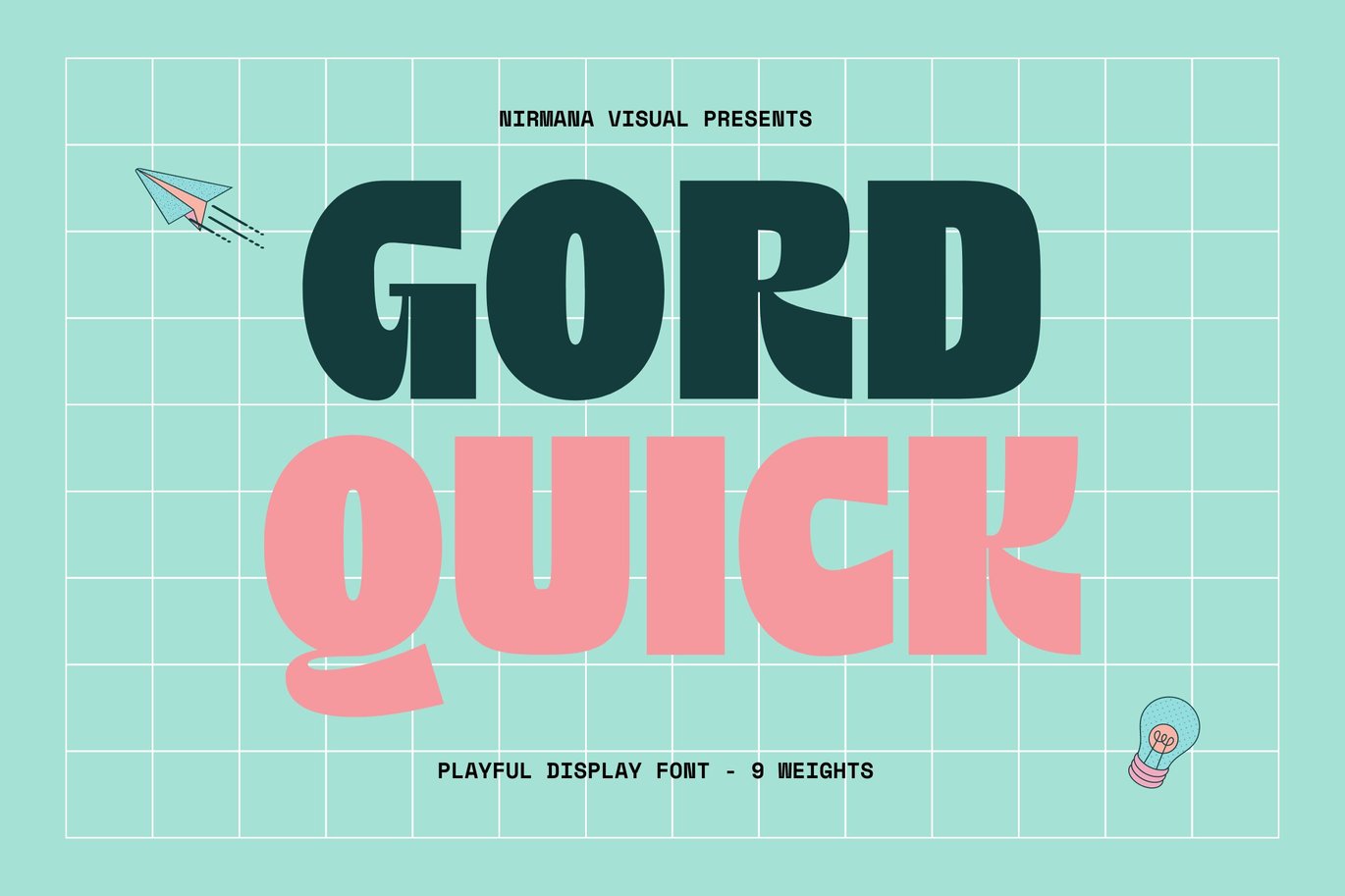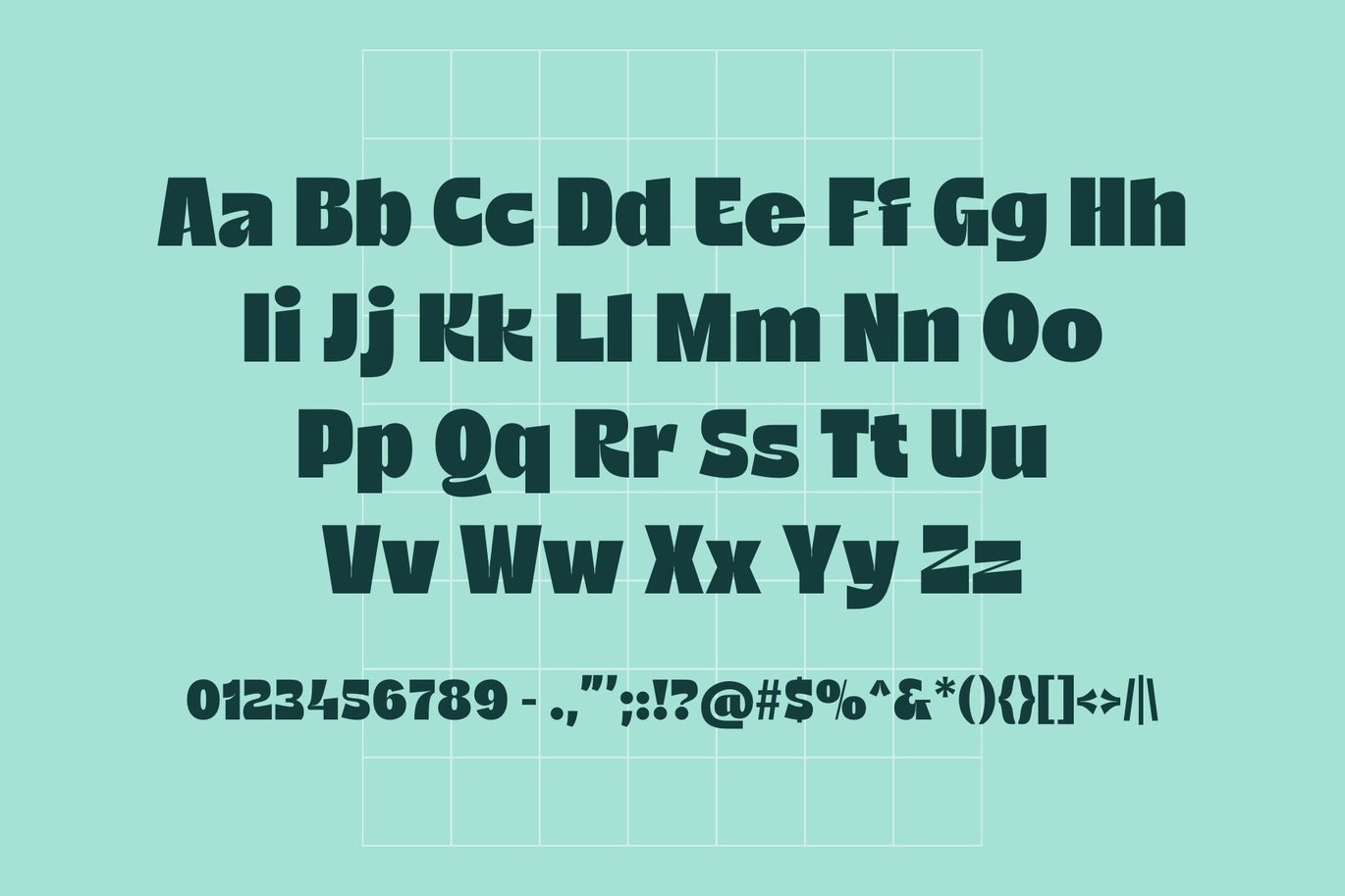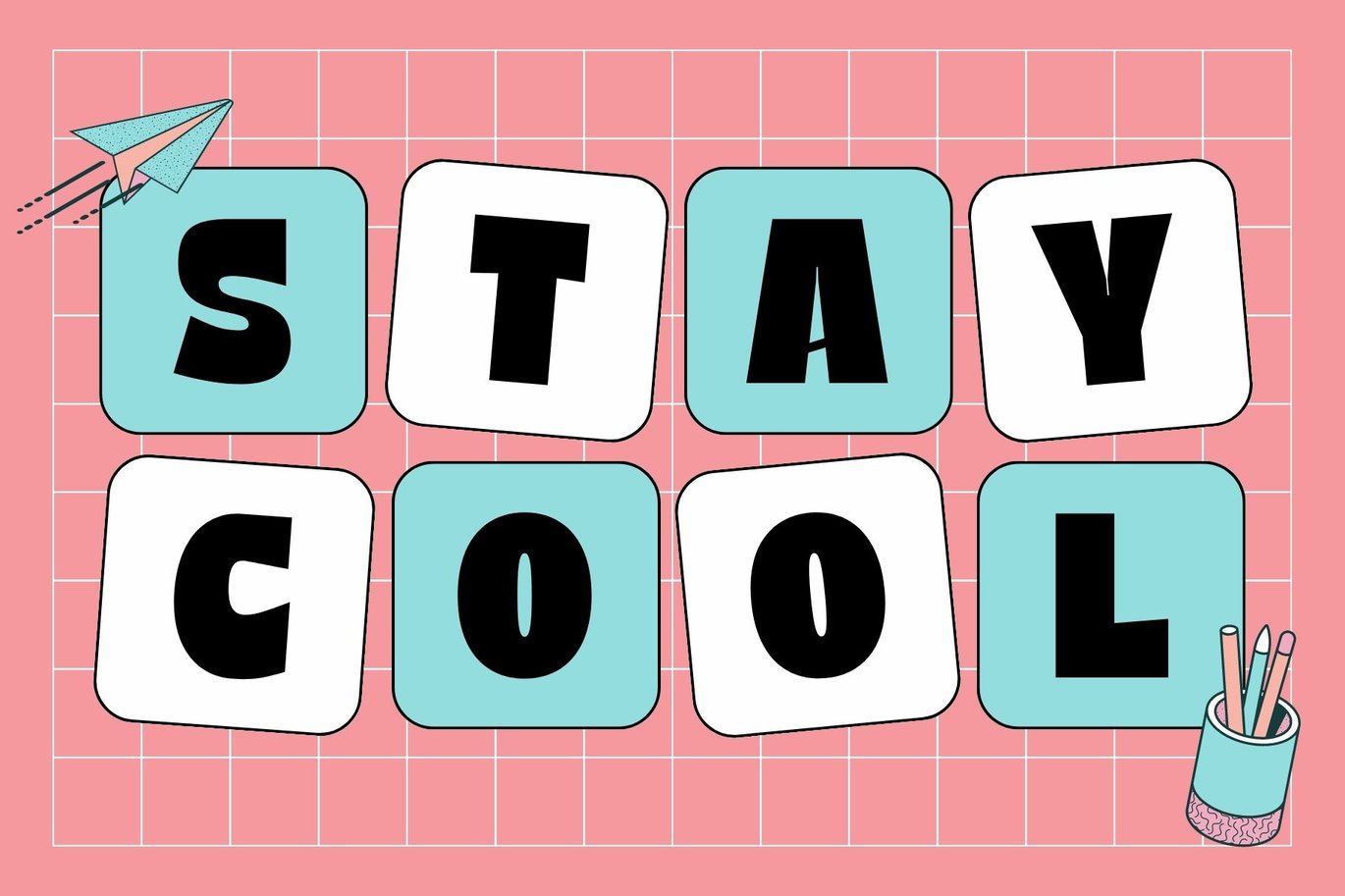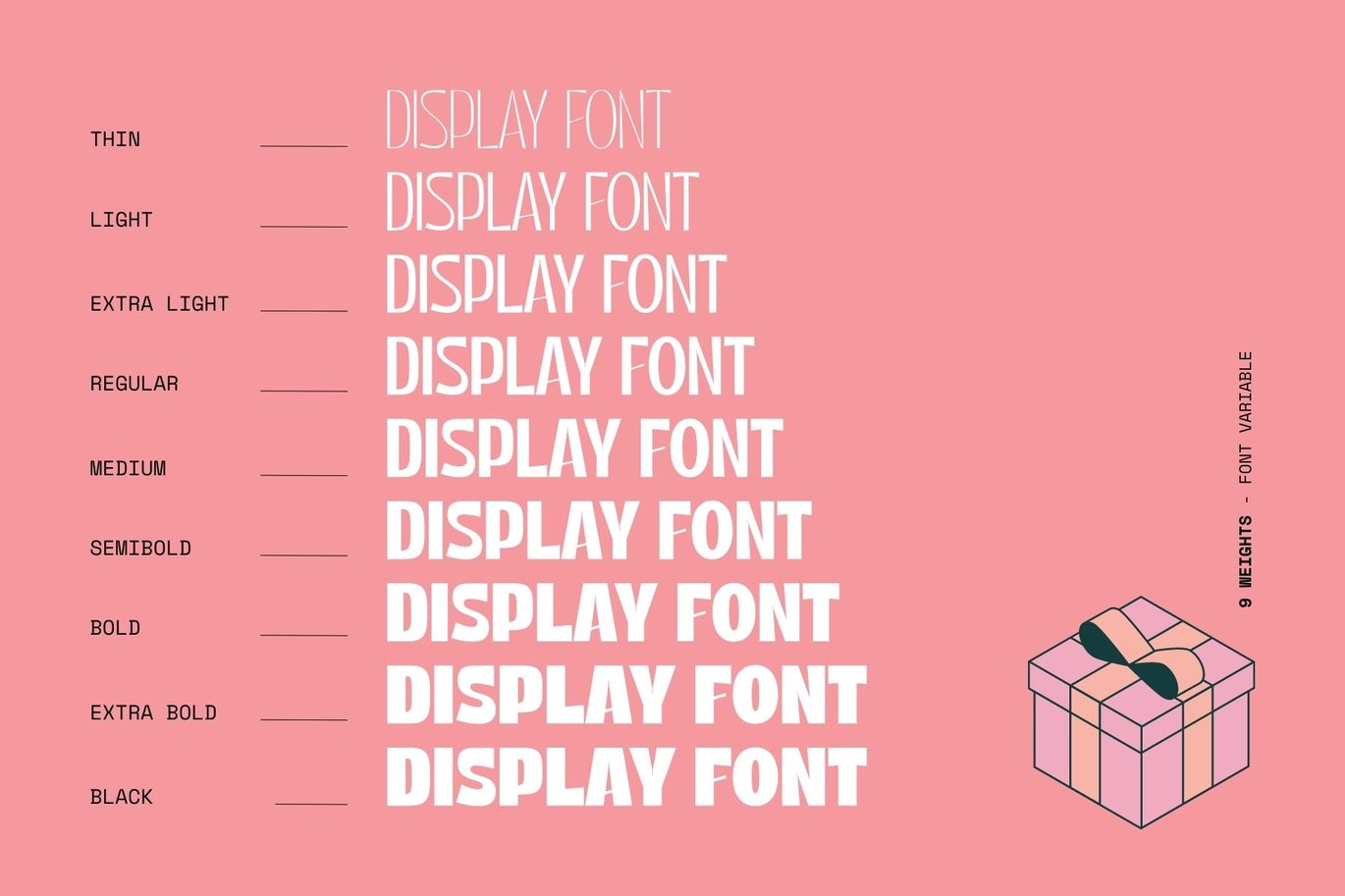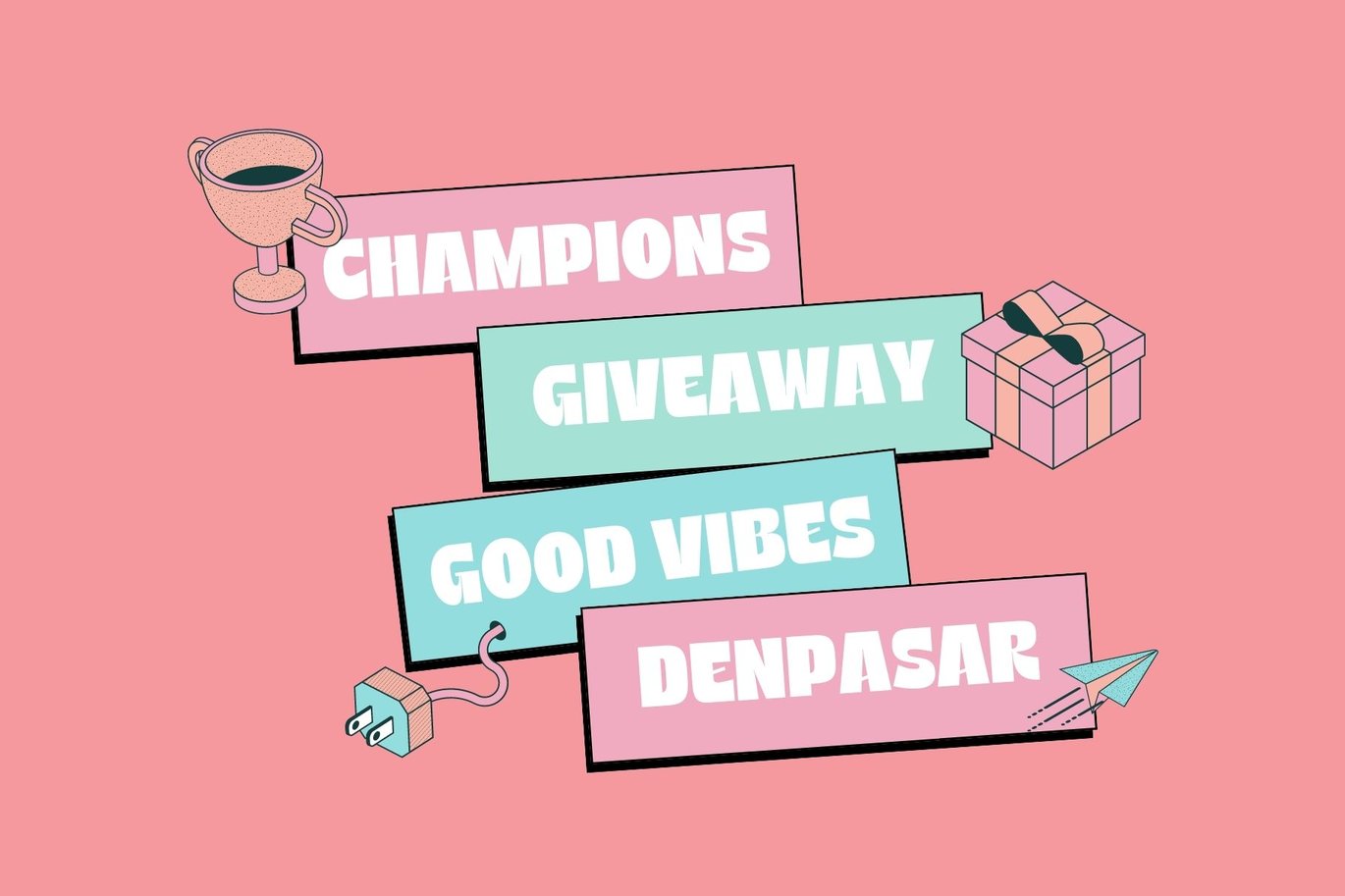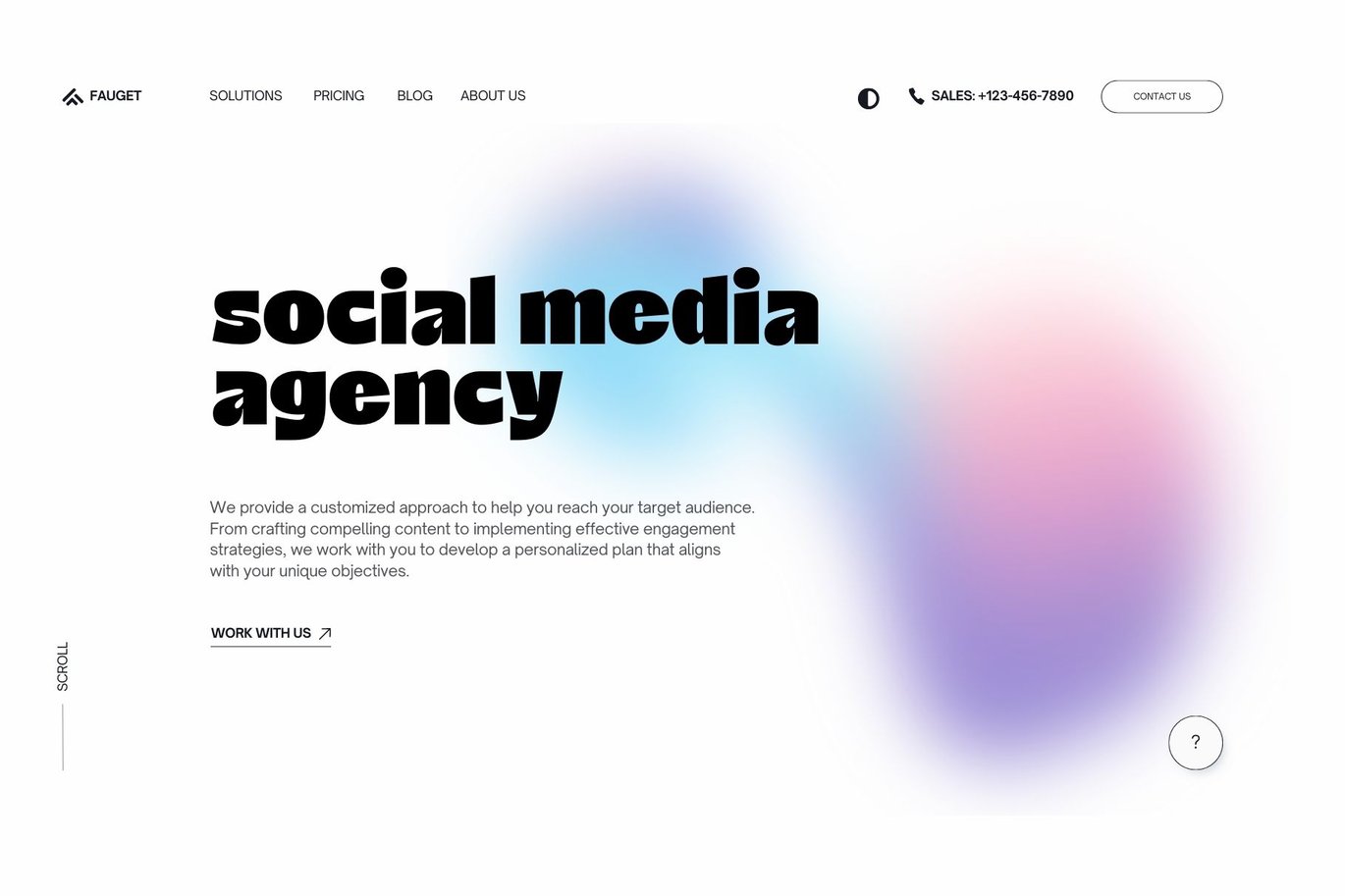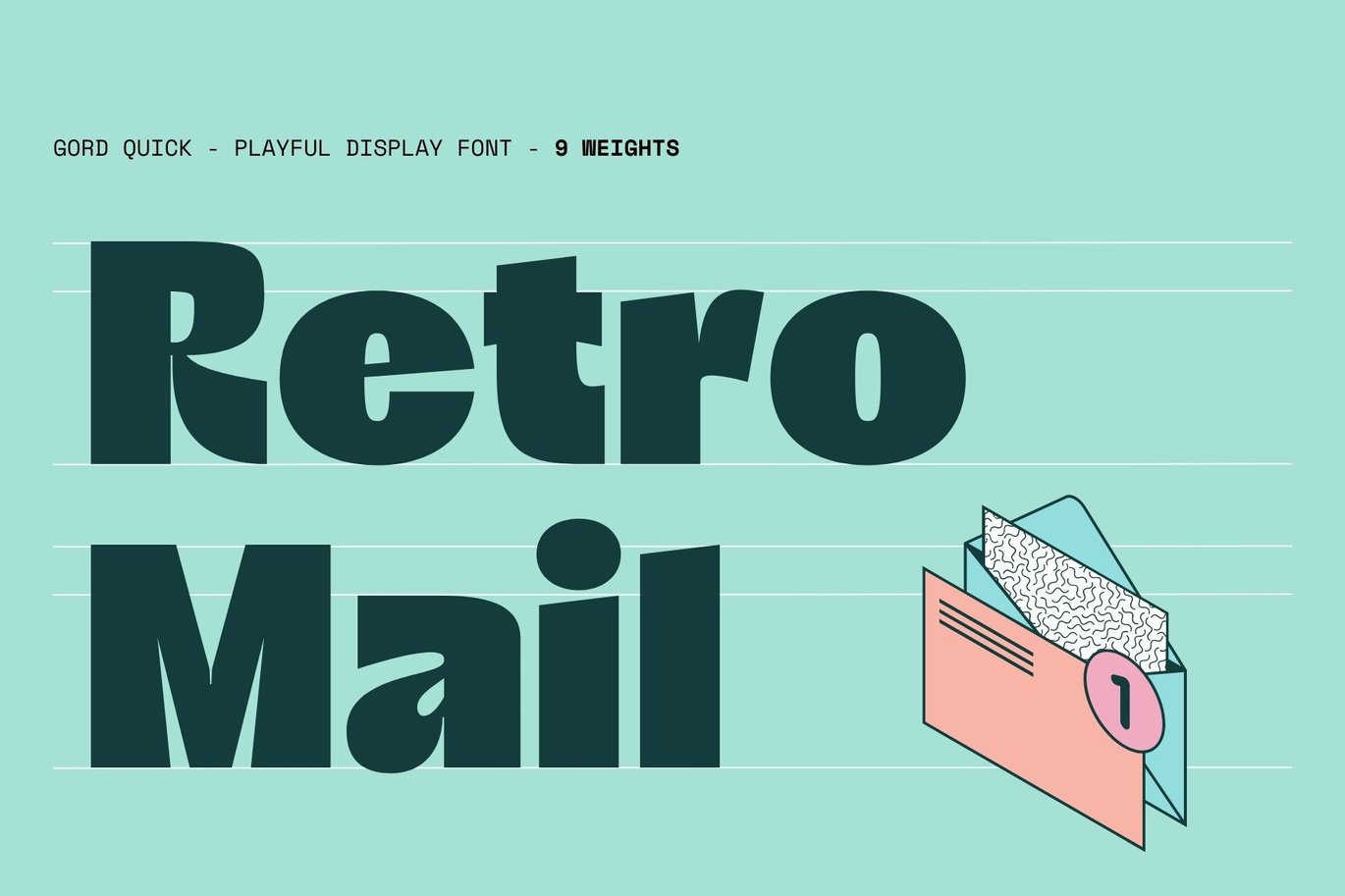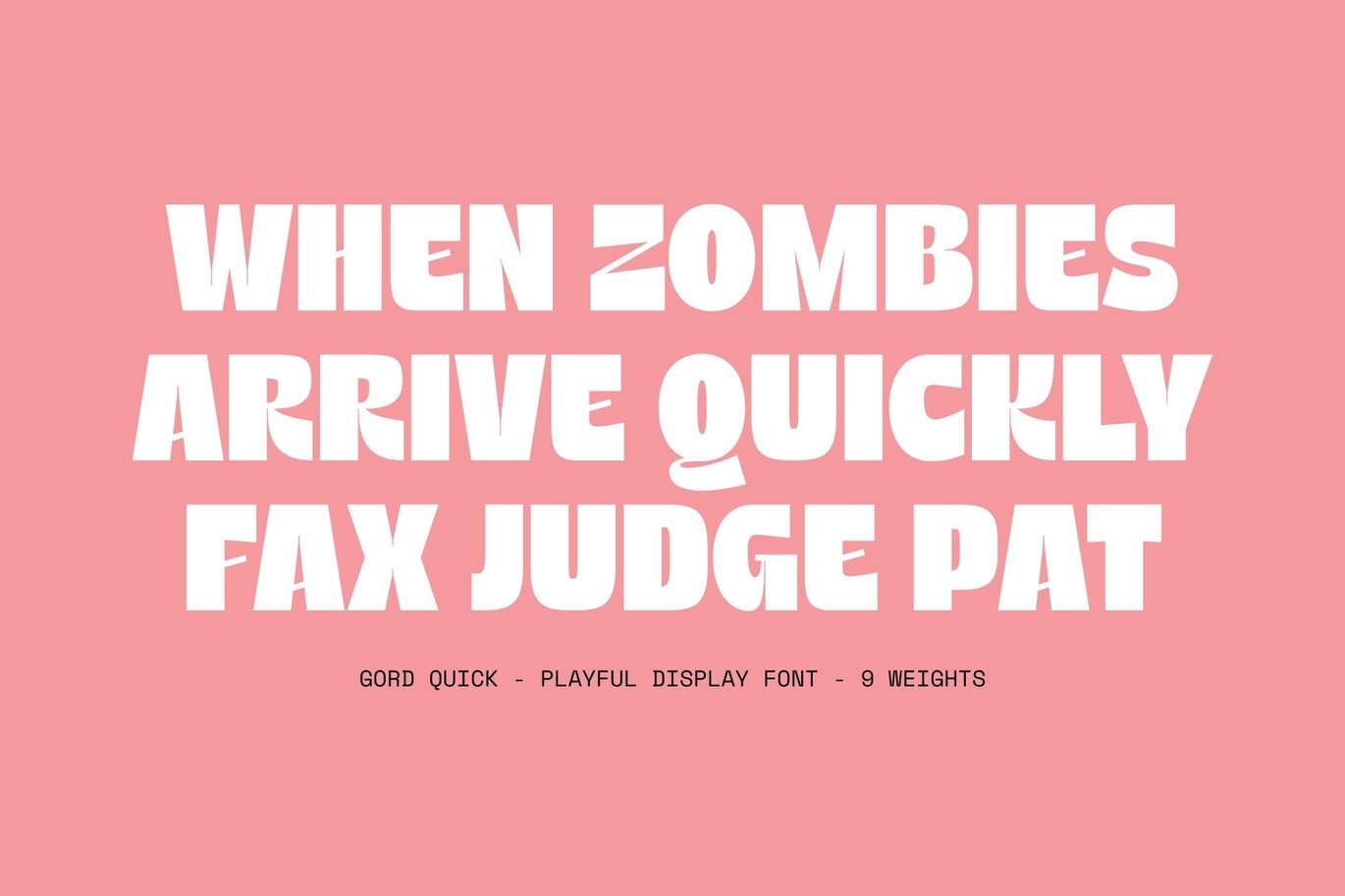
Gord Quick – Display Font
Gord Quick Unique & Playful sans serif serif family with 9 Weights
Gord Quick offers beautiful typographic harmony for a diversity of design projects, including logos & branding, social media posts, advertisements & product designs.